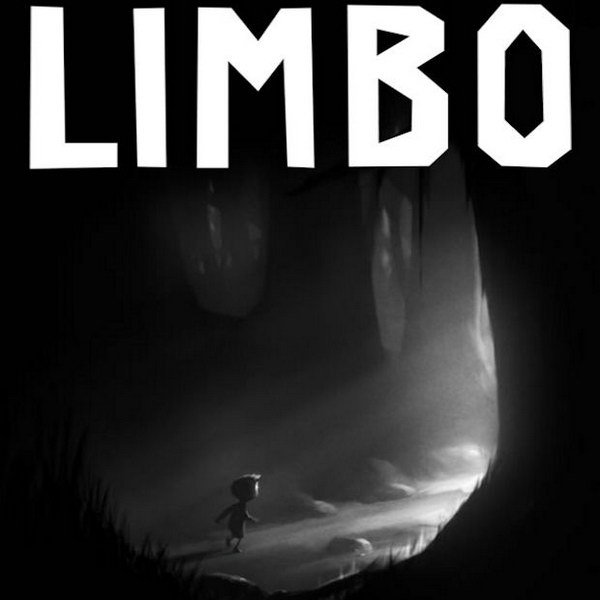
Limbo Font
The Limbo title lettering was created by the Deviant user Alex484000. The font comes in a complete pack with capital letters, numbers, a few punctuation marks, and special characters. You can download it for free in the Fonts Used Section.